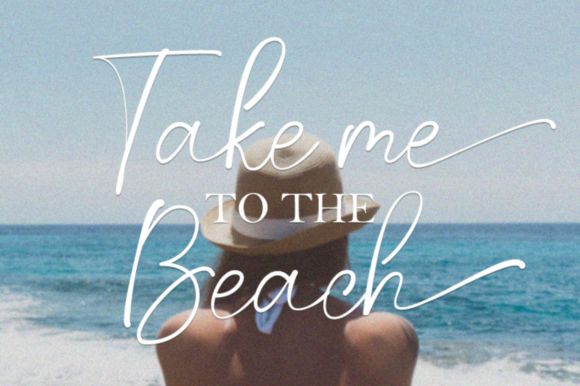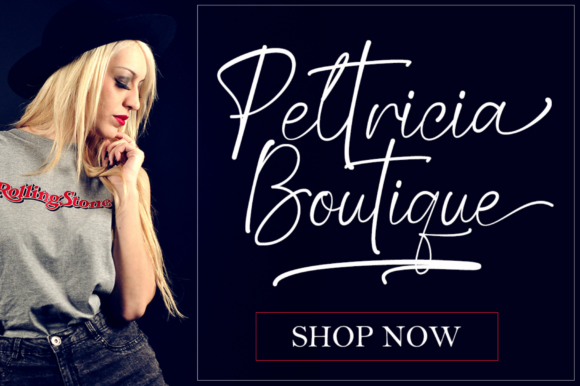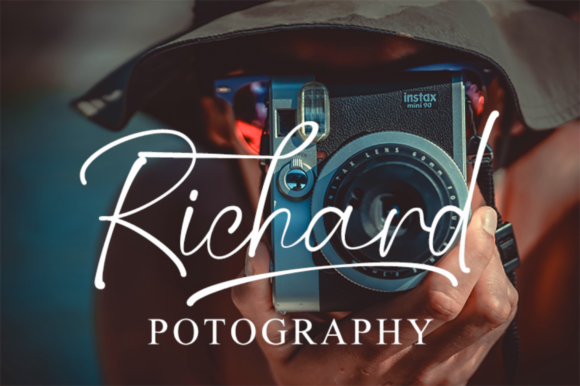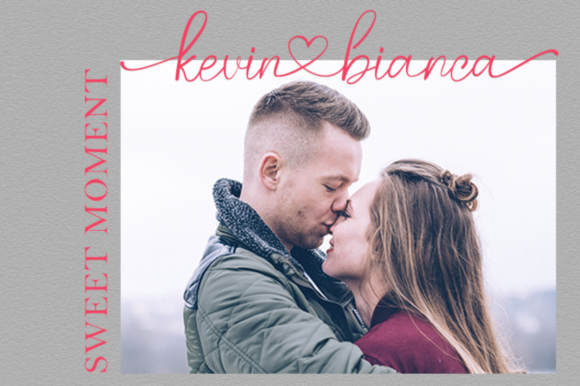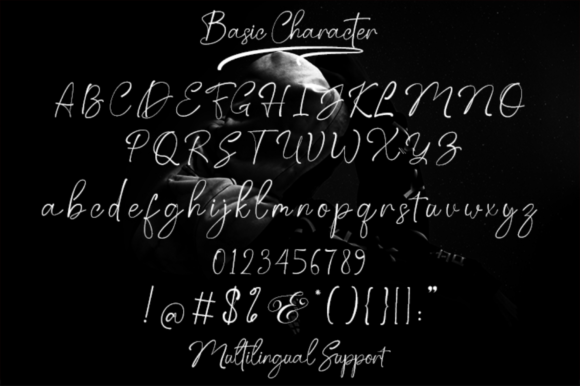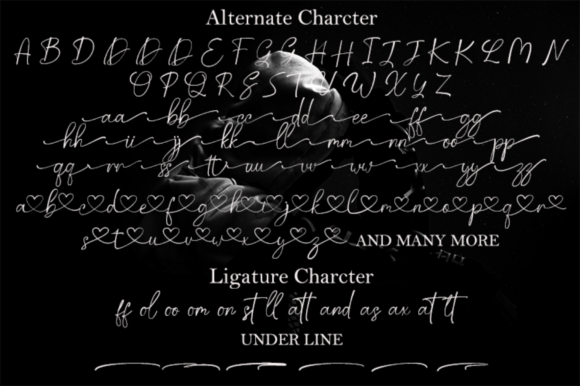
Pattrick Regan Font
About Pattrick Regan Font
Pattrick Regan is a stylish and delicate script font. It has a clean, thin and smooth vibe and it will be a hit for any design that you want to add it to. This font is PUA encoded which means you can access all of the glyphs and swashes with ease!